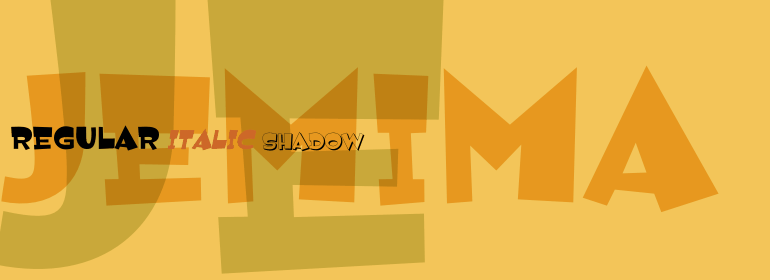
Jemima
Font Family by Device
Jemima is a fun, wacky display family with a playful personality and an offbeat visual rhythm. Its lively tone makes it a strong choice when you want type that feels expressive, unconventional, and full of character rather than reserved or formal.
With 3 font styles included—Jemima Shadow, Jemima Regular, and Jemima Italic—the family gives you a few ways to build contrast while keeping the same spirited look. Use it for posters, bold branding moments, packaging, social graphics, or any decorative display work that calls for a quirky, animated voice.
Created by Device, this family is especially well suited to projects that benefit from humor, energy, and a slightly eccentric edge.